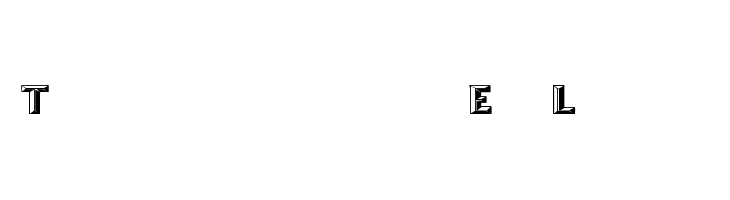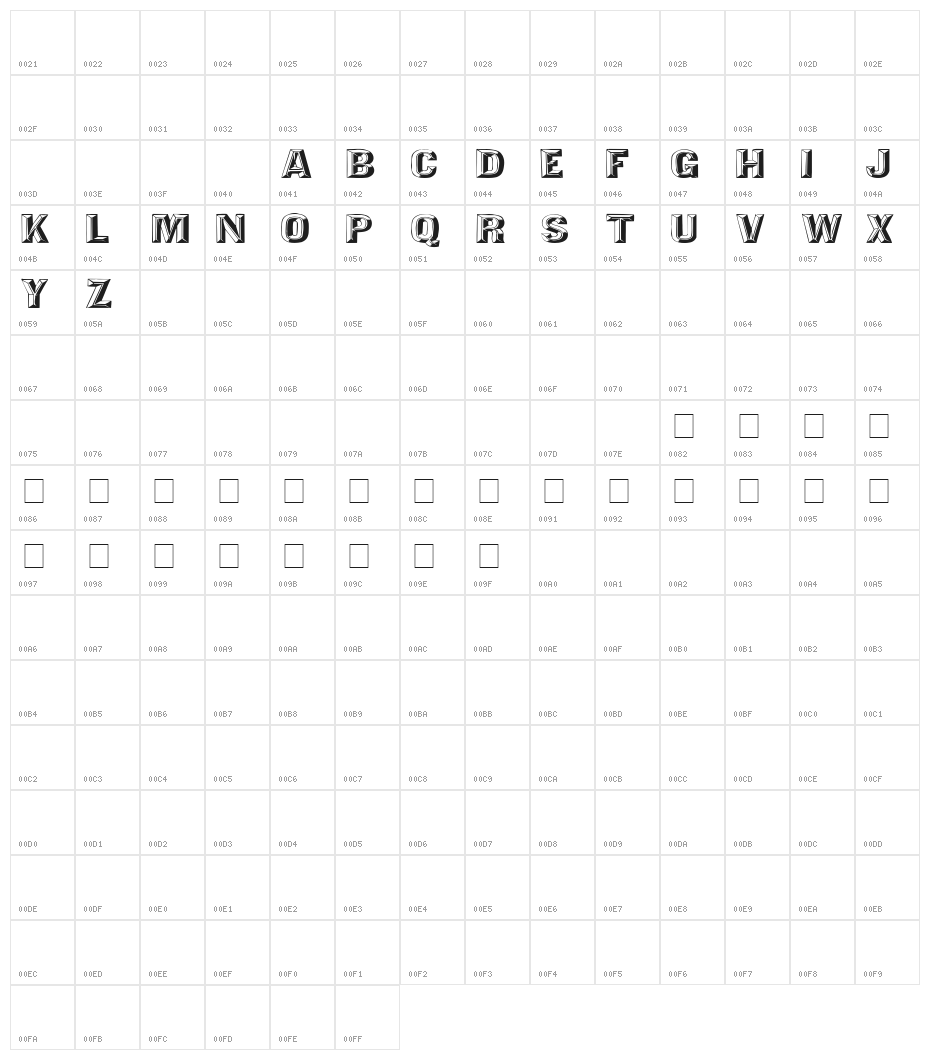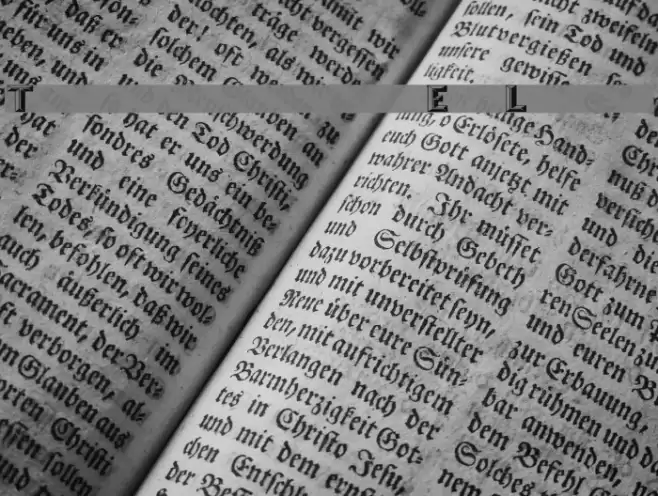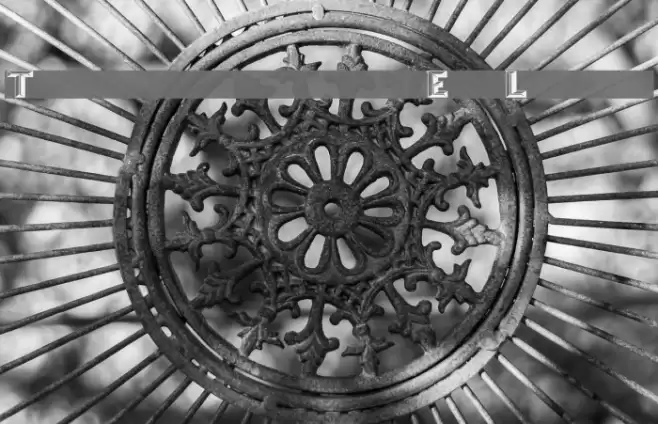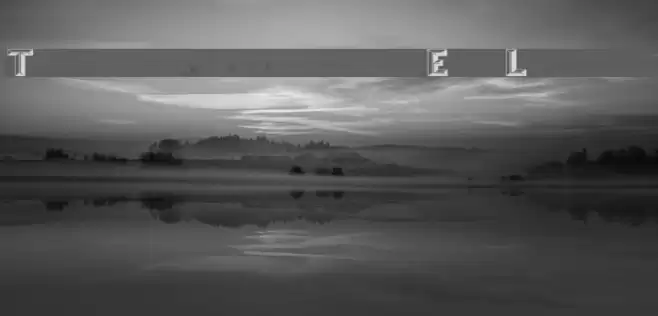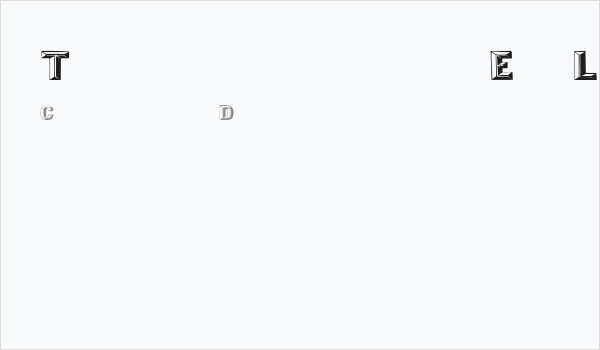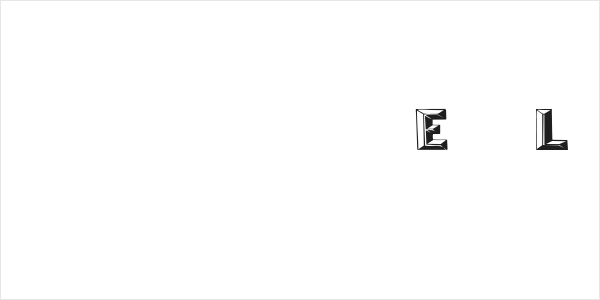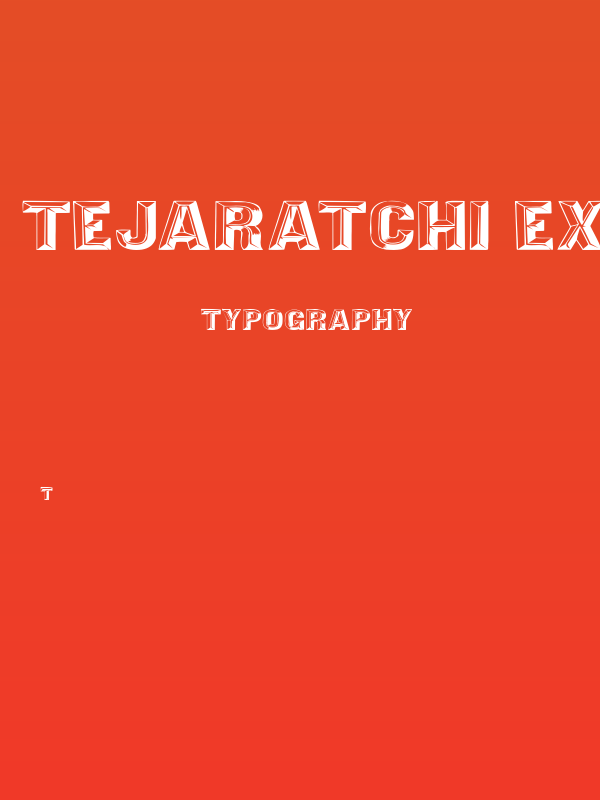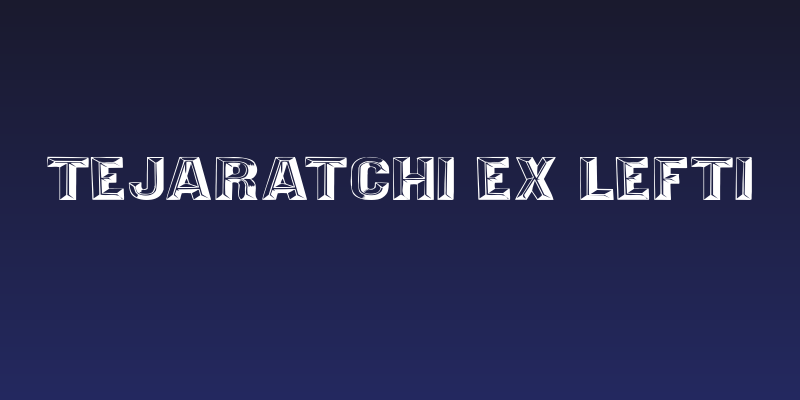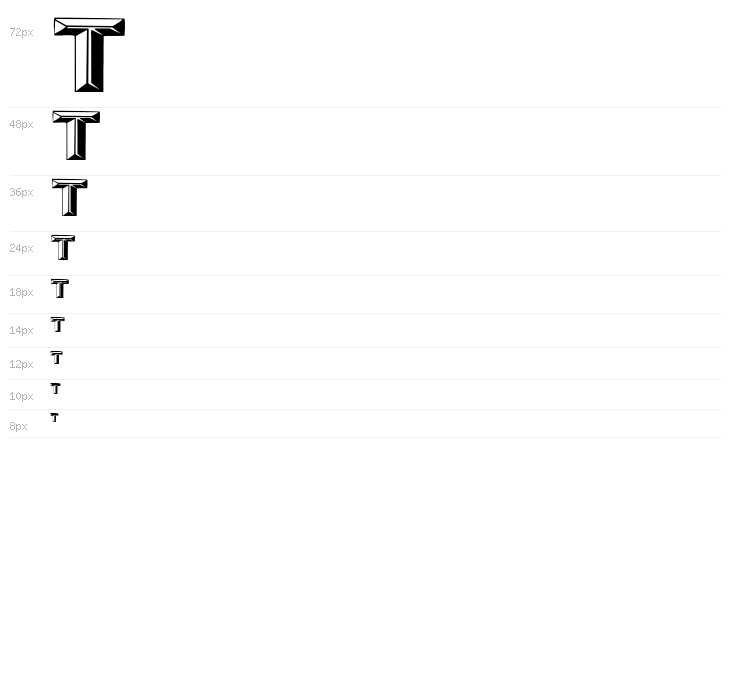
Tejaratchi Ex Lefti Font
Tejaratchi Ex Lefti Description
This font features bold, three-dimensional letters with a distinct shadow effect, giving it a striking and dynamic appearance. The uppercase letters are designed with sharp, angular edges and a strong presence, making them ideal for attention-grabbing headlines or titles. The shadowing adds depth and a sense of movement, enhancing the visual impact. The font's style is reminiscent of vintage signage or retro posters, combining a classic serif structure with a modern twist. The intricate detailing in the shadow work adds a layer of complexity, making it suitable for creative and artistic projects.
| Proposed Projects | Ideal for vintage-themed posters, retro signage, creative branding, and eye-catching headlines. |